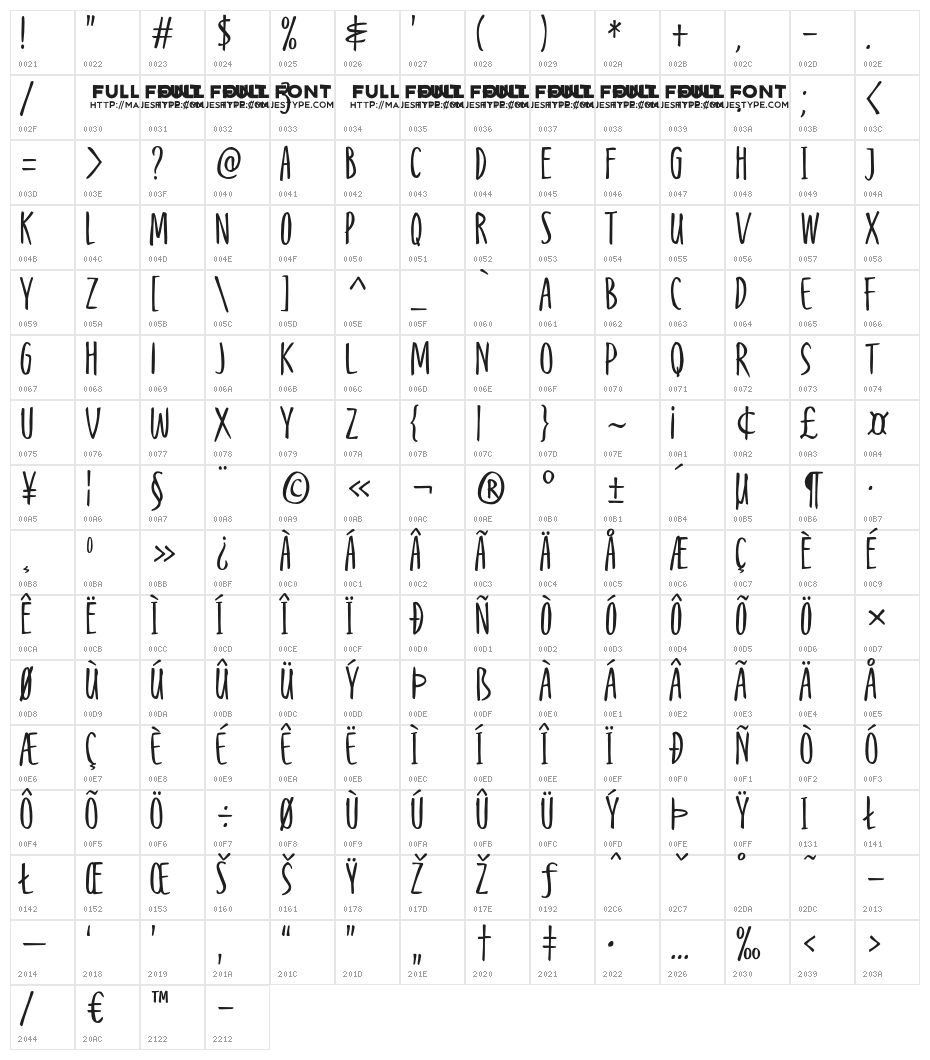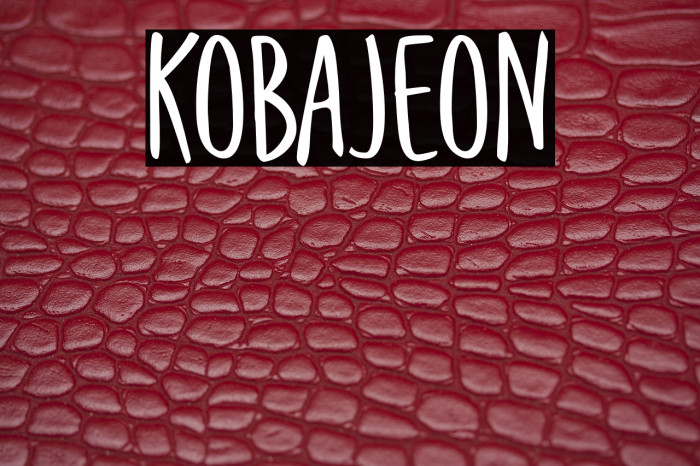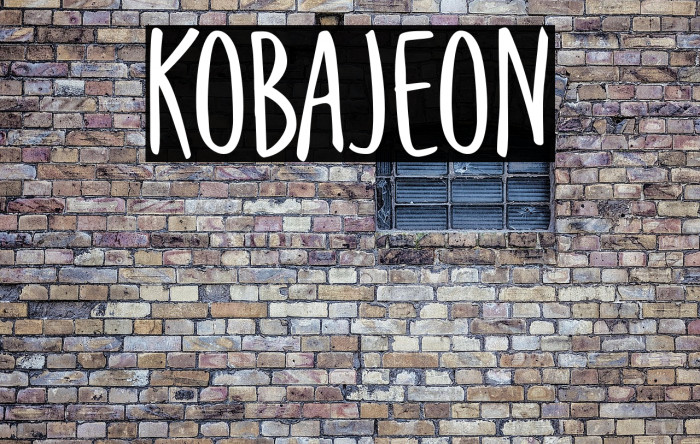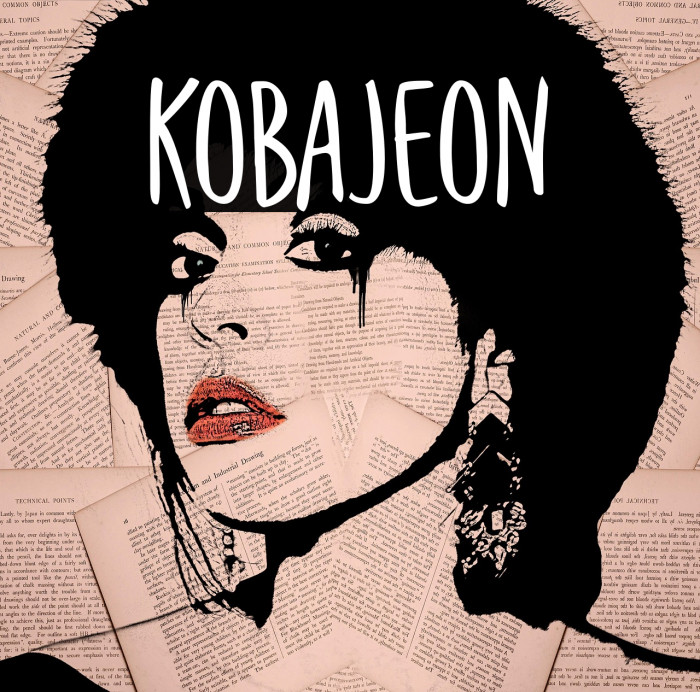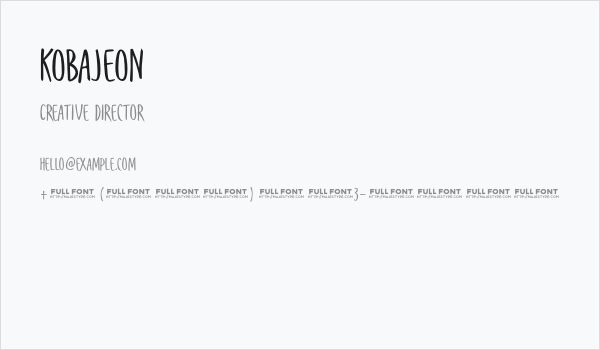
Kobajeon Font
Kobajeon Description
A playful, handwritten font with tall, narrow letters and a casual style.
| Proposed Projects | Greeting cards, posters, informal branding. |